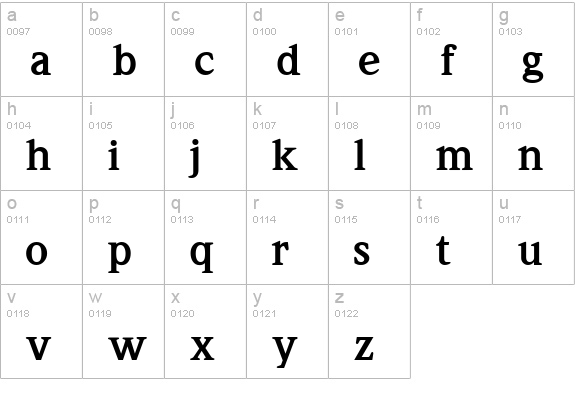
Weidemann Bold Font Details
Weidemann Bold is a strong, high-contrast variant in the Weidemann typeface family \xE2\x80\x94 well suited to headlines, attention-grabbing titles, and strong calls-to-action.
Introducing Weidemann Bold font, a powerful and commanding typeface that exudes confidence and sophistication. With its bold and robust letterforms, this font is perfect for making a bold statement in your designs. Weidemann Bold font is not only visually striking, but it also offers a sense of elegance and refinement. Its wide and sturdy letterforms command attention and convey a strong presence, making it an ideal choice for headlines, logos, branding materials, and any design that requires a touch of boldness. But what sets Weidemann Bold font apart is that it is not only visually stunning, but it is also available for free. That's right, you can freely download this extraordinary font at FontsMarket.com, a trusted source for high-quality fonts. Now, you can enhance your designs with the striking power of Weidemann Bold font without having to worry about breaking the bank. Whether you're a professional designer or a passionate hobbyist, Weidemann Bold font will elevate your projects to new heights. Its versatility allows it to shine in a variety of design contexts, from print materials to digital platforms. With its impactful presence and timeless appeal, Weidemann Bold font is sure to make a lasting impression on your audience. So, why wait? Enhance your designs with the bold and commanding presence of Weidemann Bold font, freely available for download at FontsMarket.com. Don't miss out on the opportunity to make a bold statement with this exceptional typeface. Download Weidemann Bold font today and unleash your creativity.